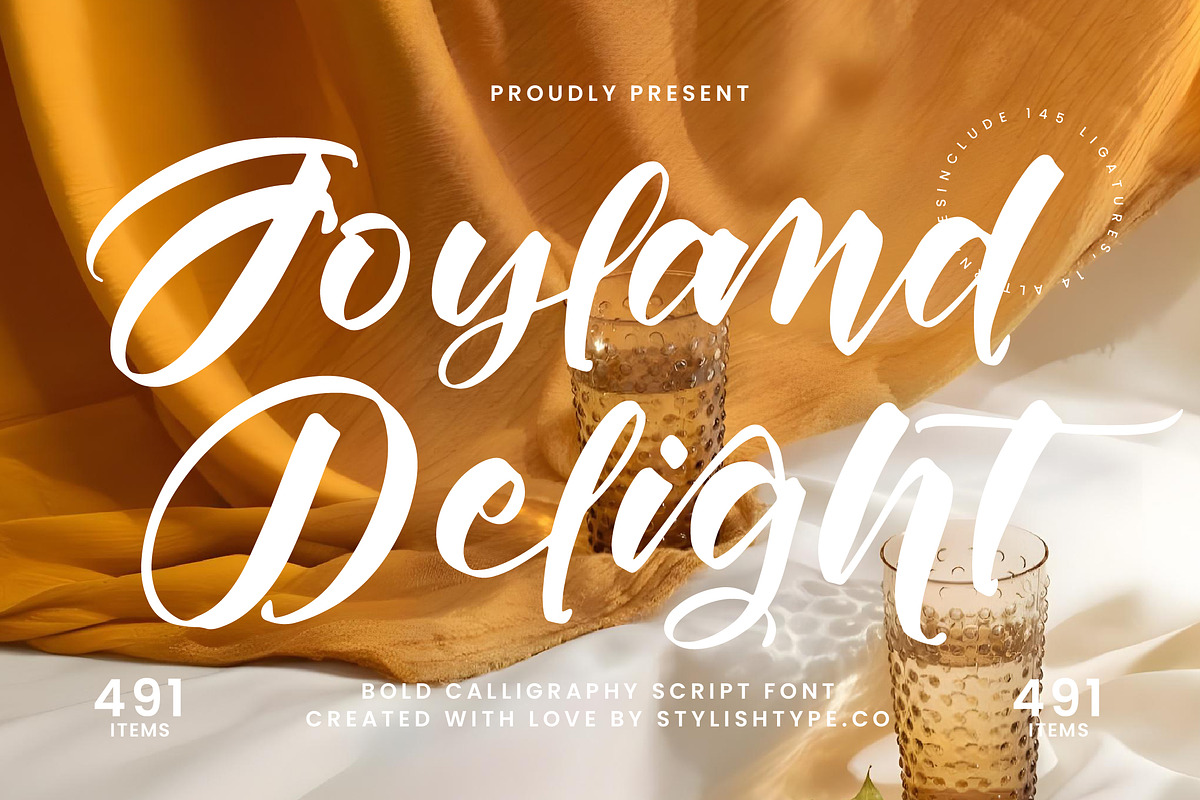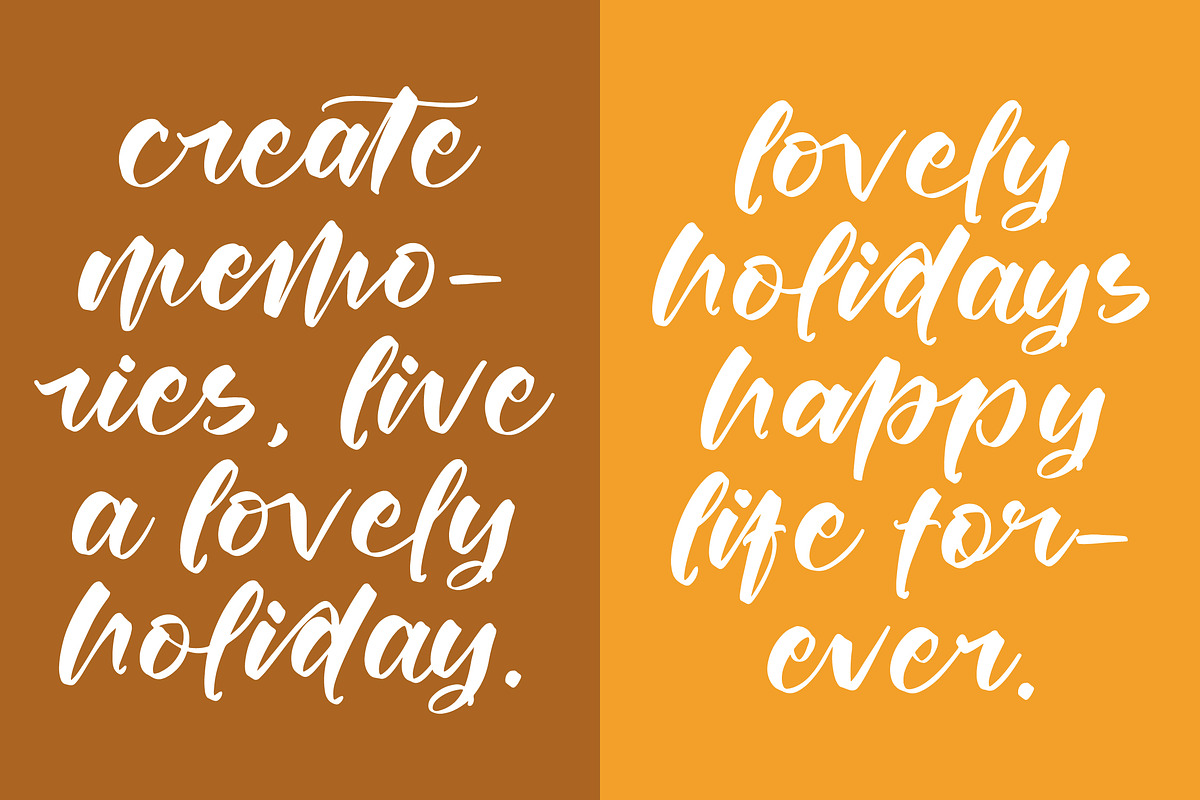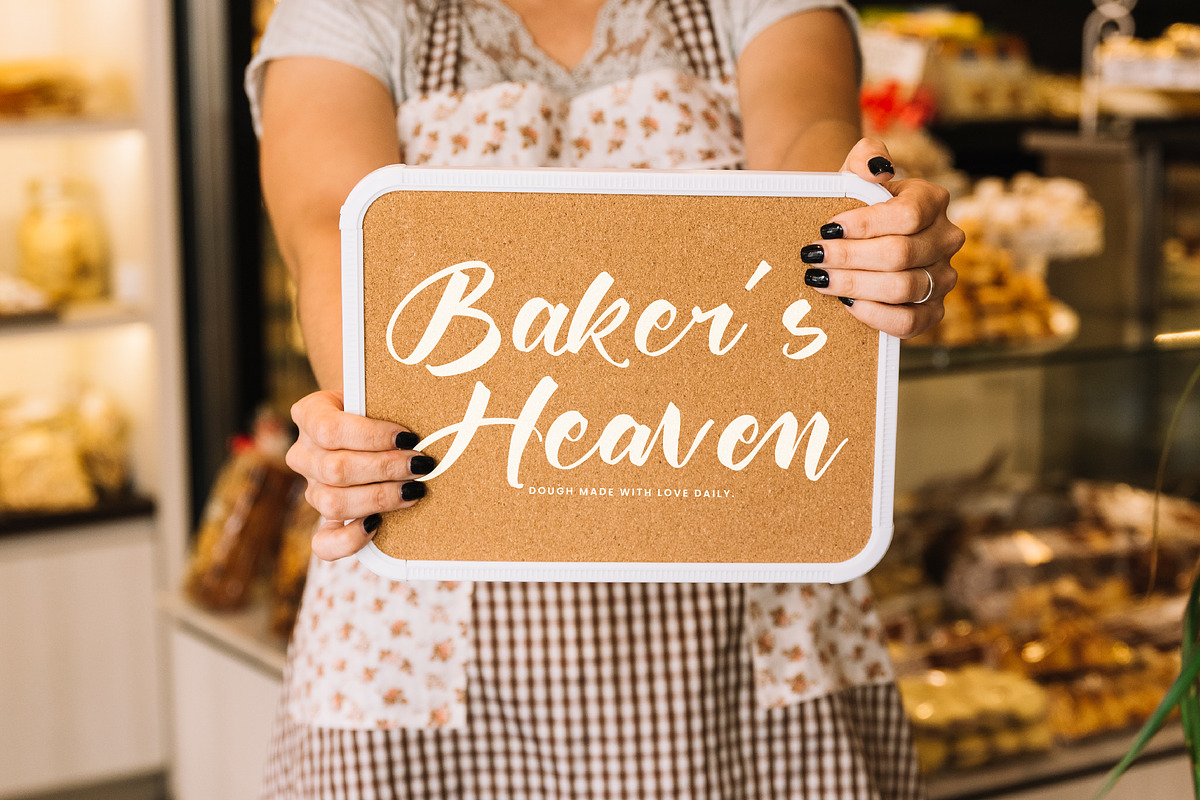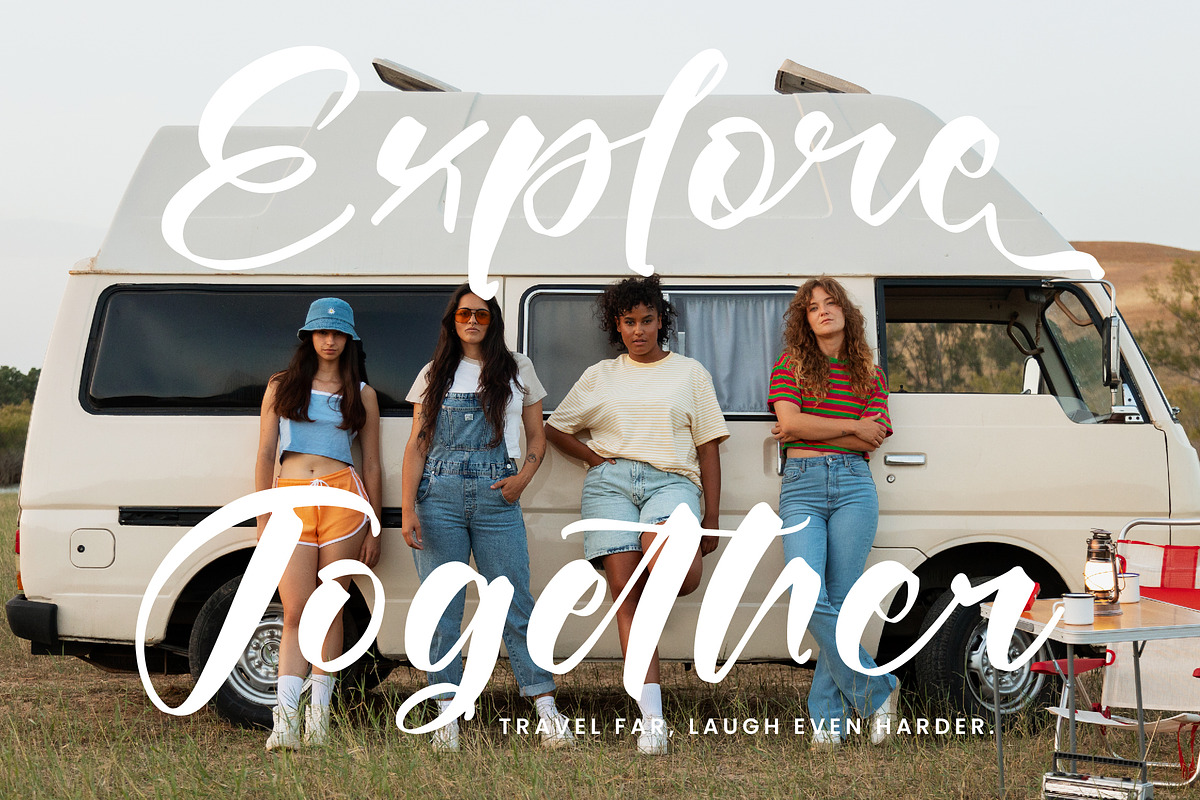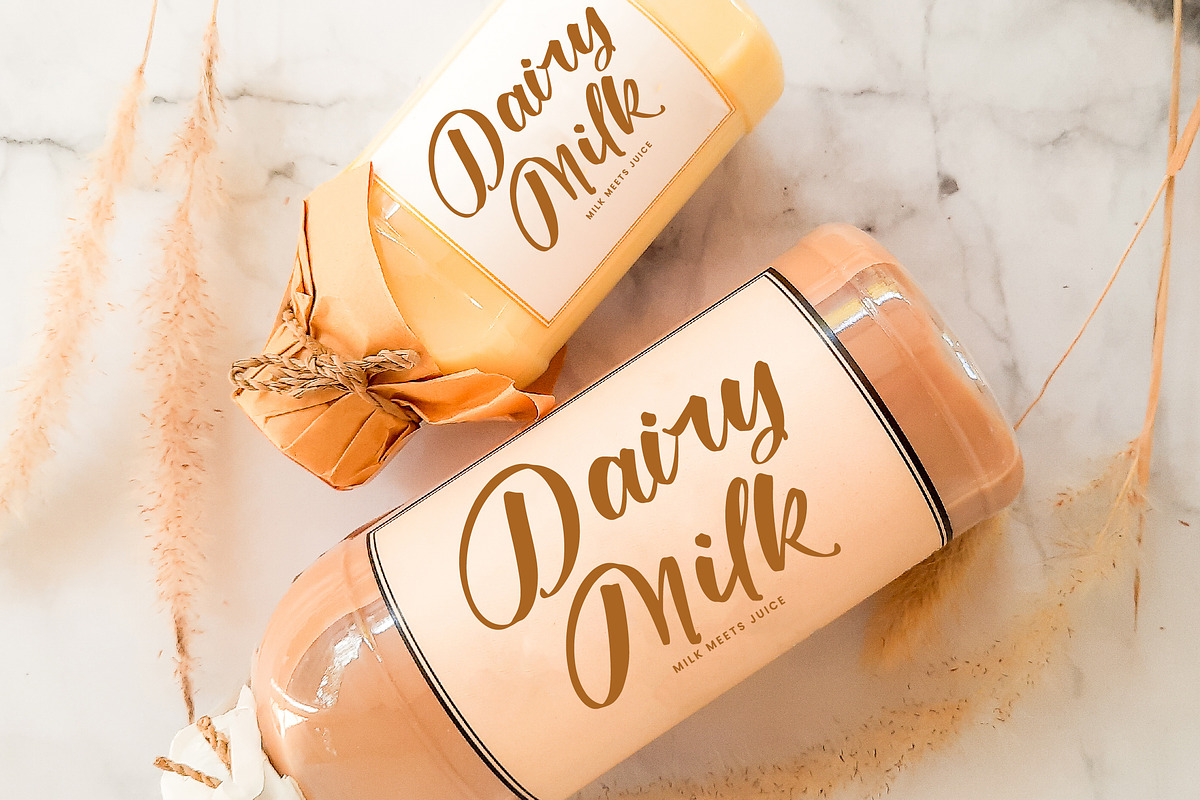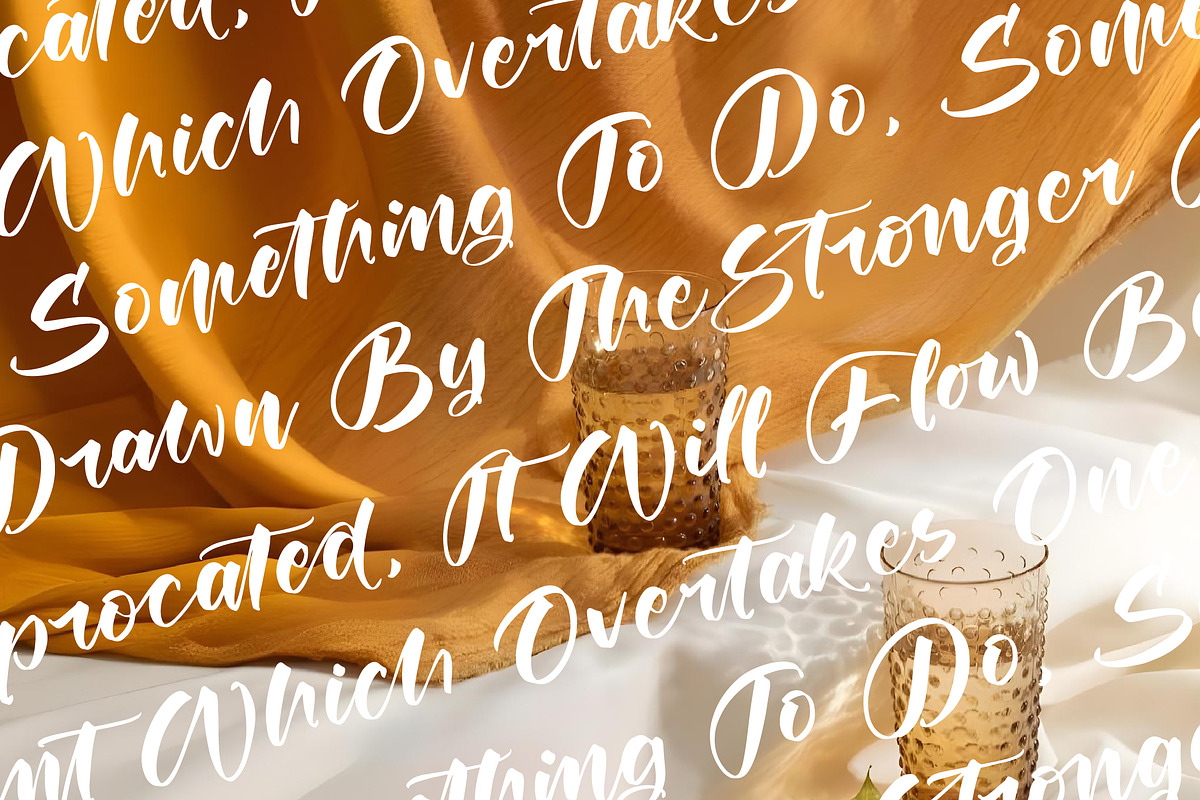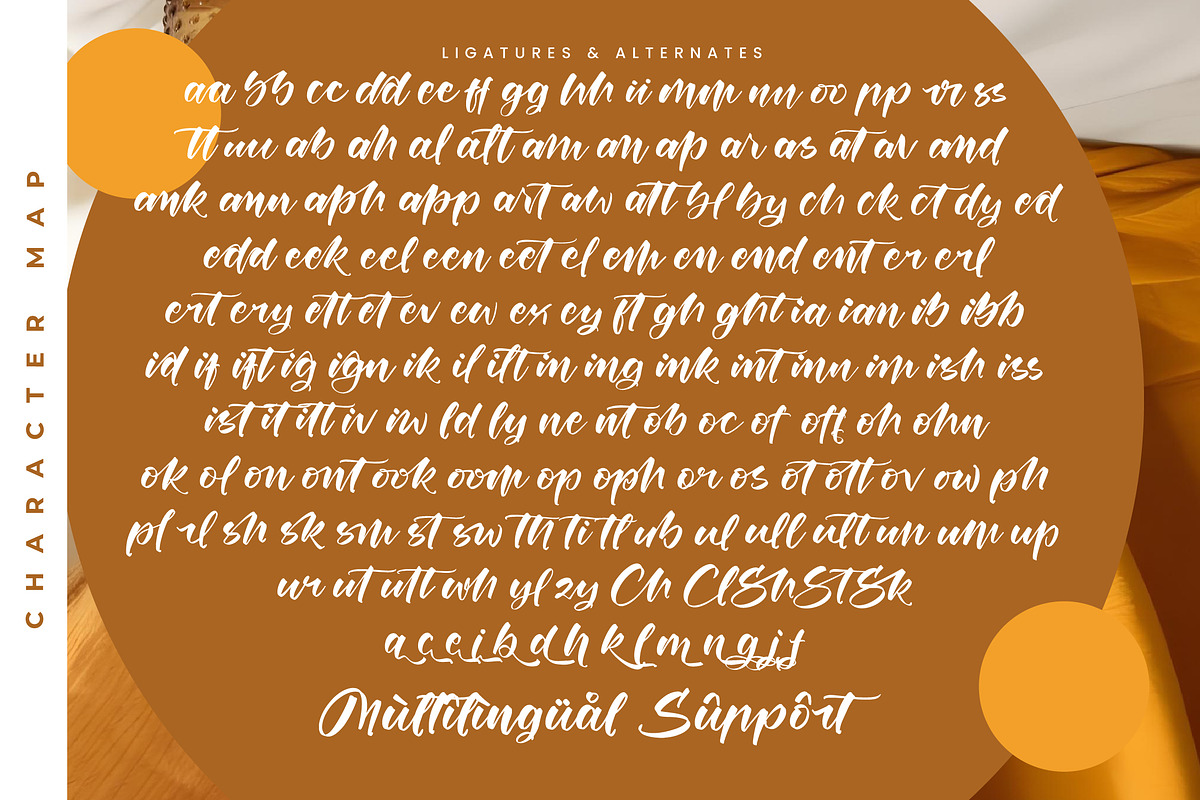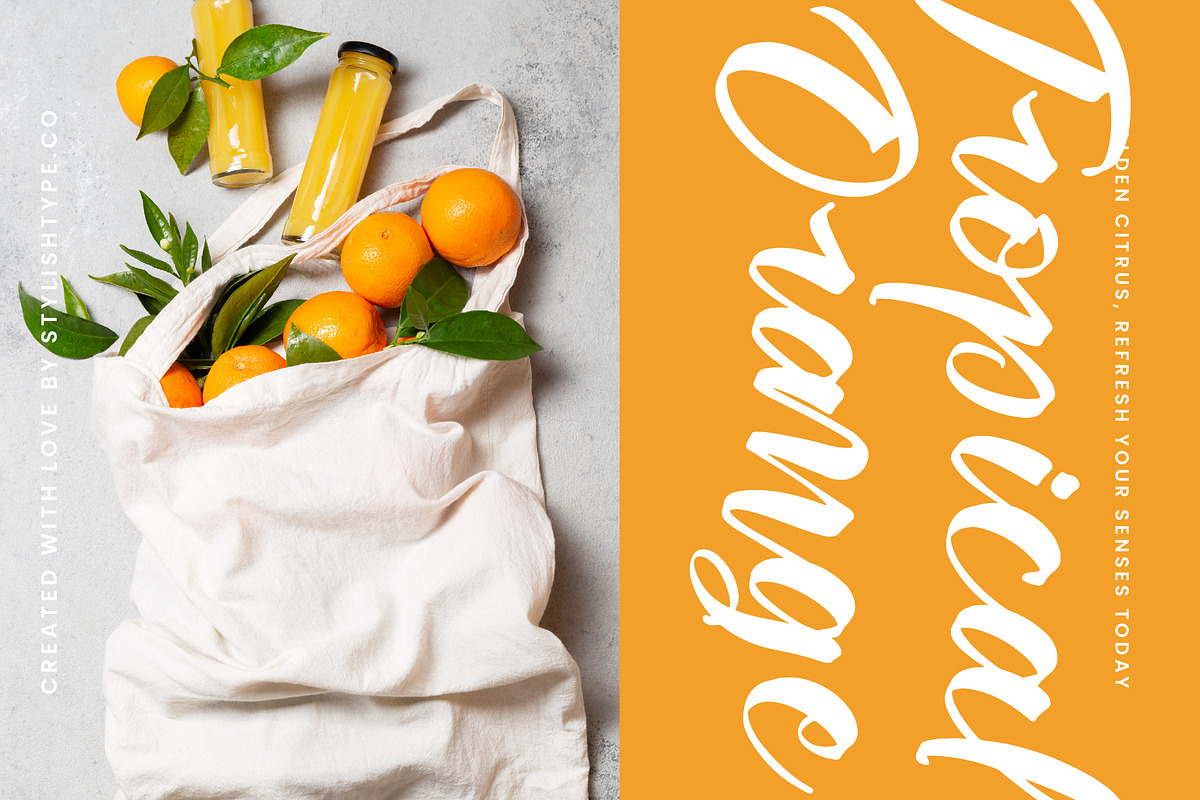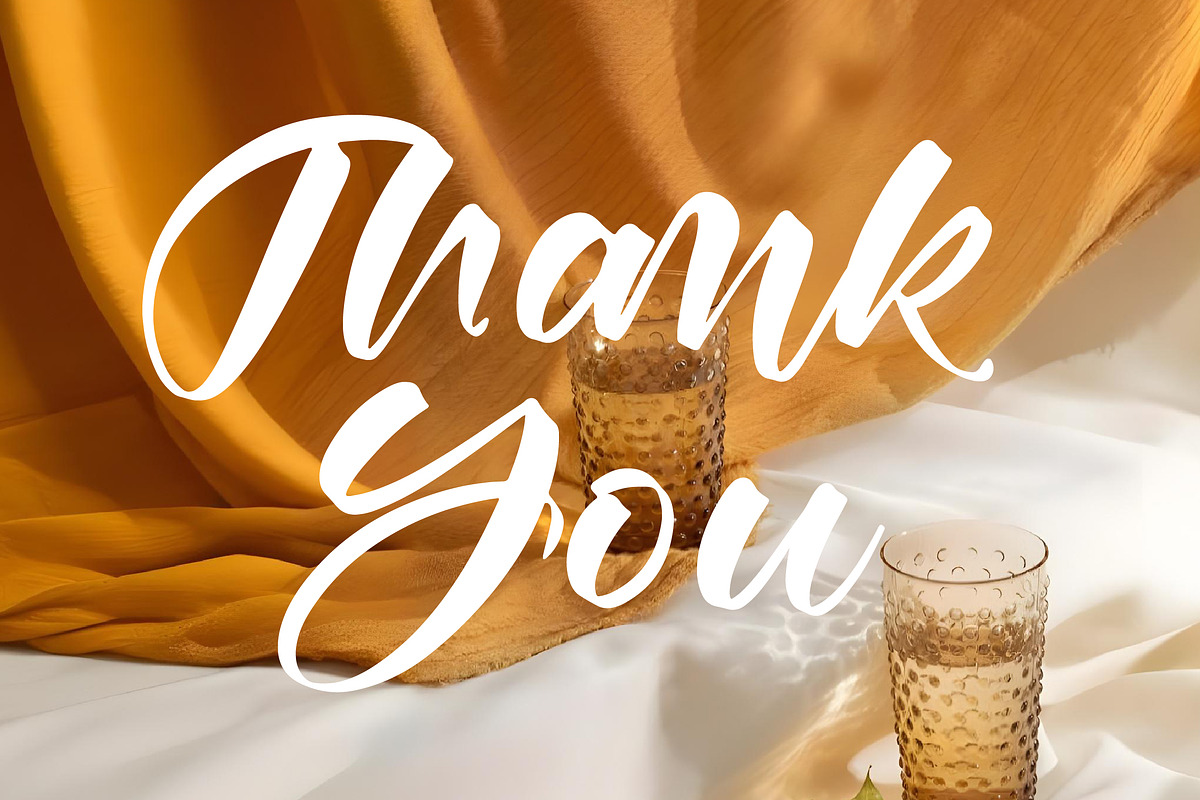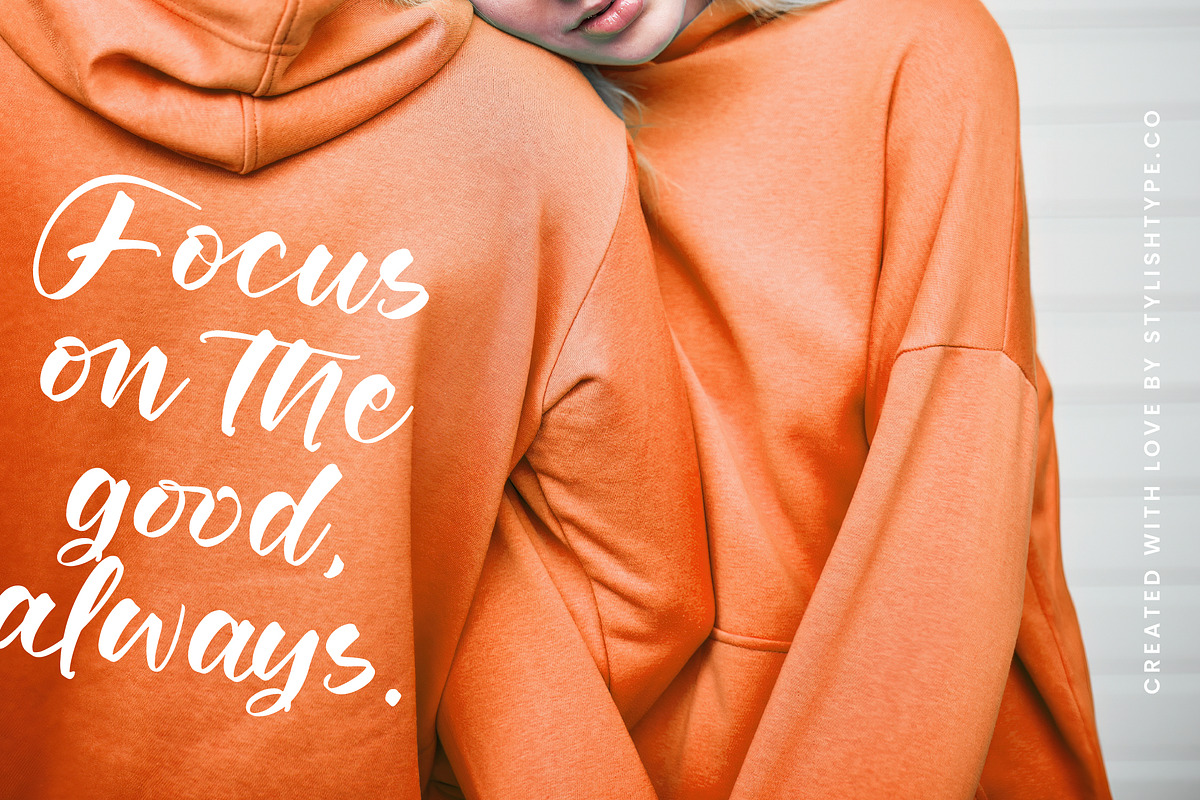
Joyland Delight Bold Calligraphy
Joyland Delight - Bold Calligraphy Script , from Stylishtype.Co , Suitable for any projects such as: logos, branding projects, homeware designs, product packaging, mugs, quotes, posters, shopping bags, t-shirts, book covers, name card, invitation cards, greeting cards, label, photography, watermark, special events, and all your other luxury and beautiful projects that need a Luxury Script taste.
- 145 Ligature 14 Alternates & Swashes